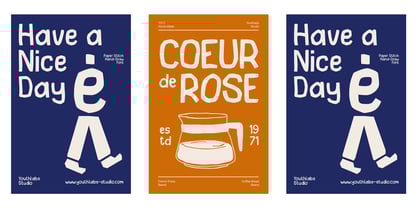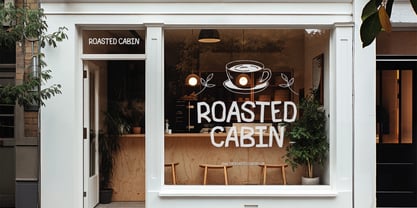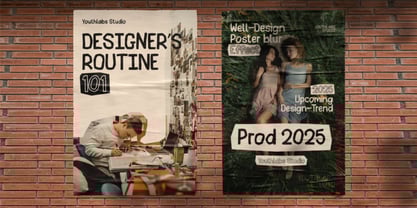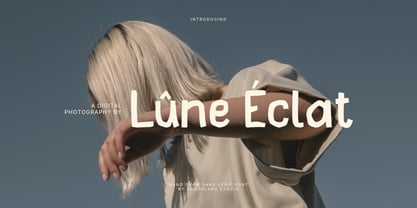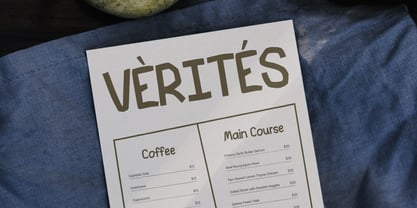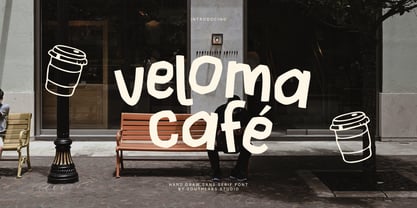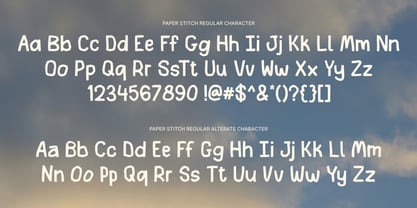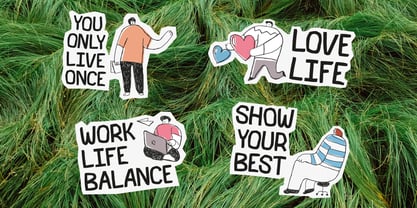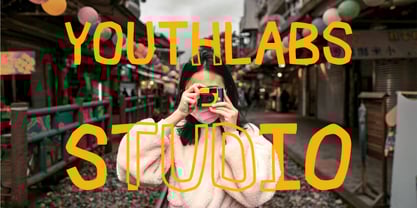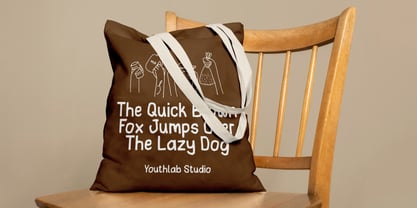
Paper Stitch
by Youthlabs
The Paper Stitch Font Family was designed by Fathi Al Ghazi and published by Youthlabs. Paper Stitch contains 2 styles and family package options.
Paper Stitch bring a playful, handmade charm to your creative projects with Paper Stitch, a hand-drawn sans serif font that blends the casual feel of a travel journal with the clarity of modern design. Each letter feels like it’s stitched together with care—perfect for vlog titles, lifestyle branding, adventure posters, DIY packaging, and anything that craves a personal, crafted touch.